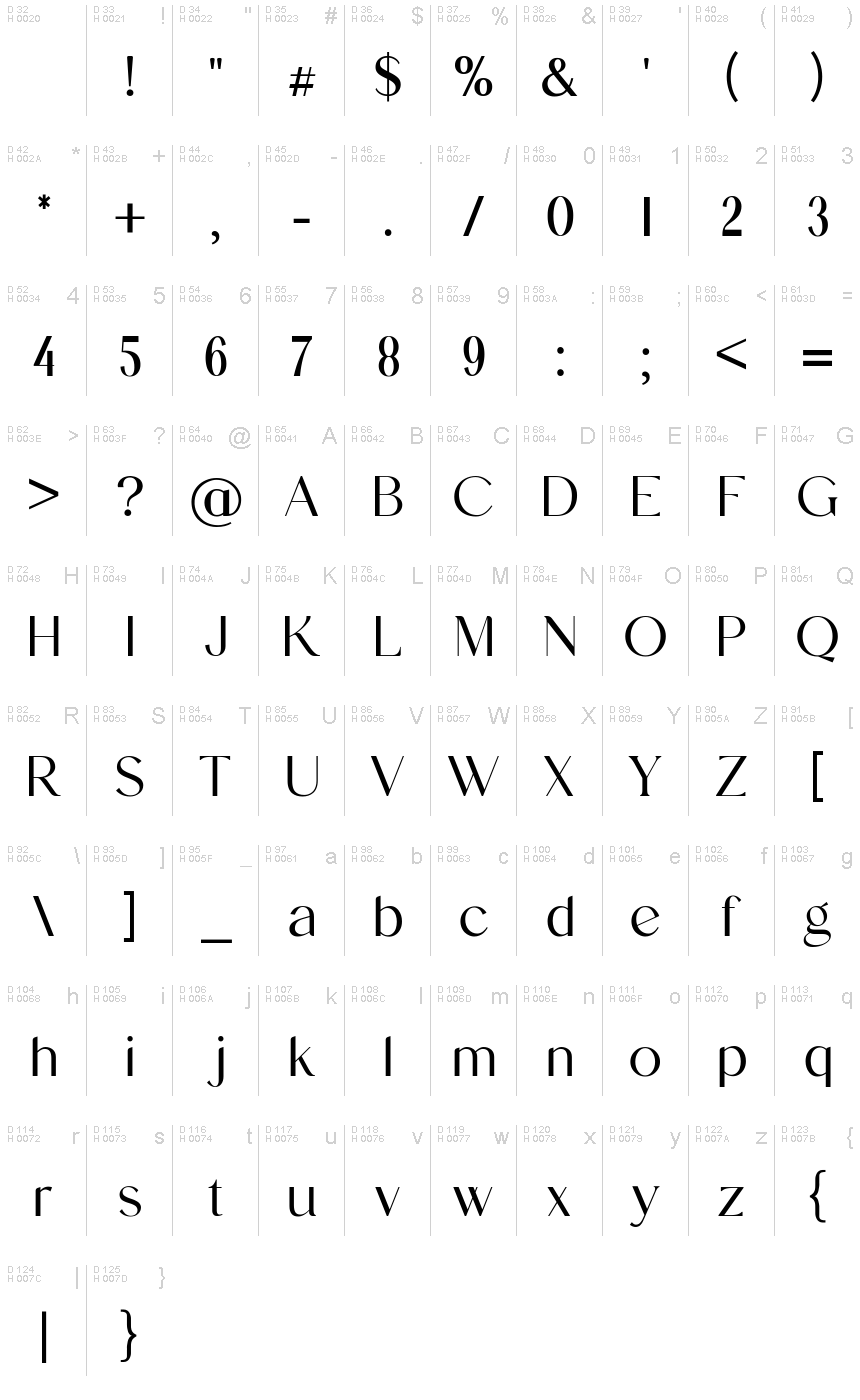
SALVAGER
Salvager, a captivating serif font crafted by UI Creative, exudes a timeless elegance that commands attention. Its sharp, angular serifs and striking letterforms evoke a sense of strength and sophistication, making it a standout choice for projects requiring a bold, impactful aesthetic. The font's distinct personality seamlessly blends traditional typographic elements with a modern flair, creating a visual harmony that is both visually compelling and versatile.
Salvager's versatility shines through its ability to adapt to a wide range of design applications. Its authoritative presence lends itself well to editorial layouts, corporate branding, and signage, where its commanding presence can make a lasting impression. Conversely, the font's refined and sophisticated character also makes it an excellent choice for high-end fashion, luxury goods, and artistic endeavors, where its elegant aesthetic can elevate the overall design.